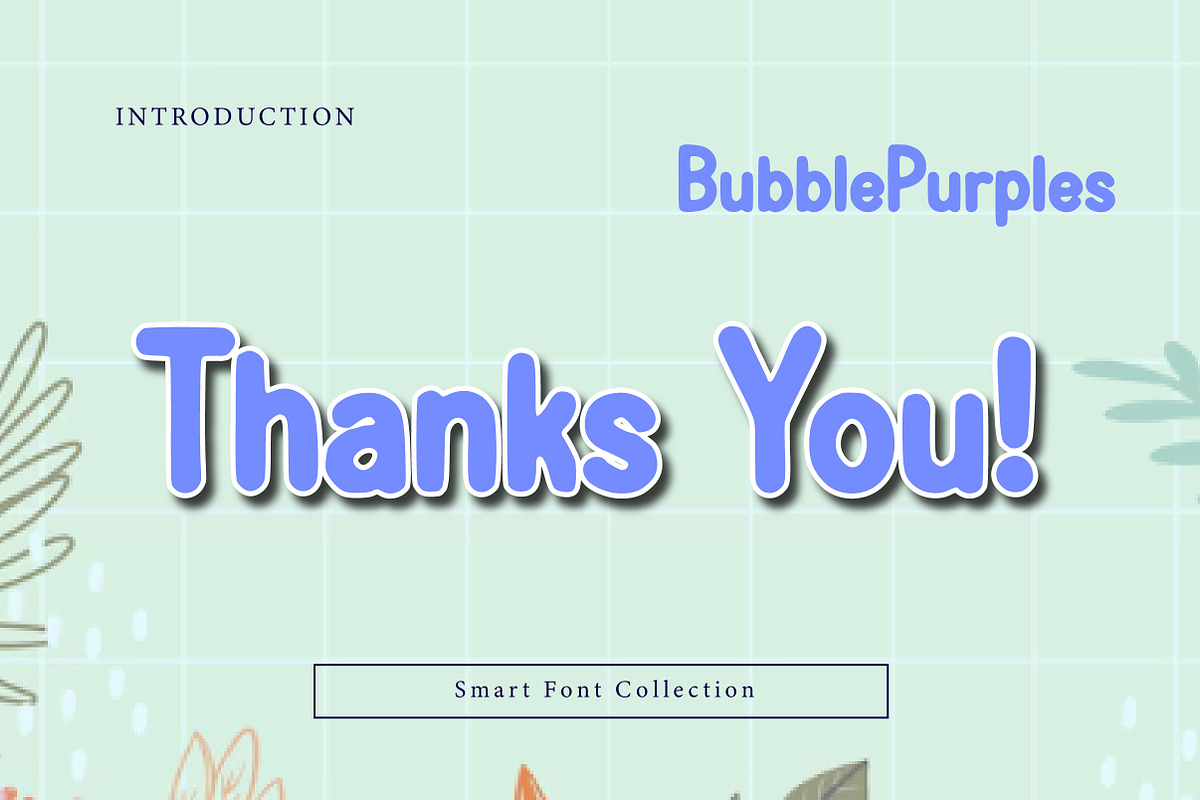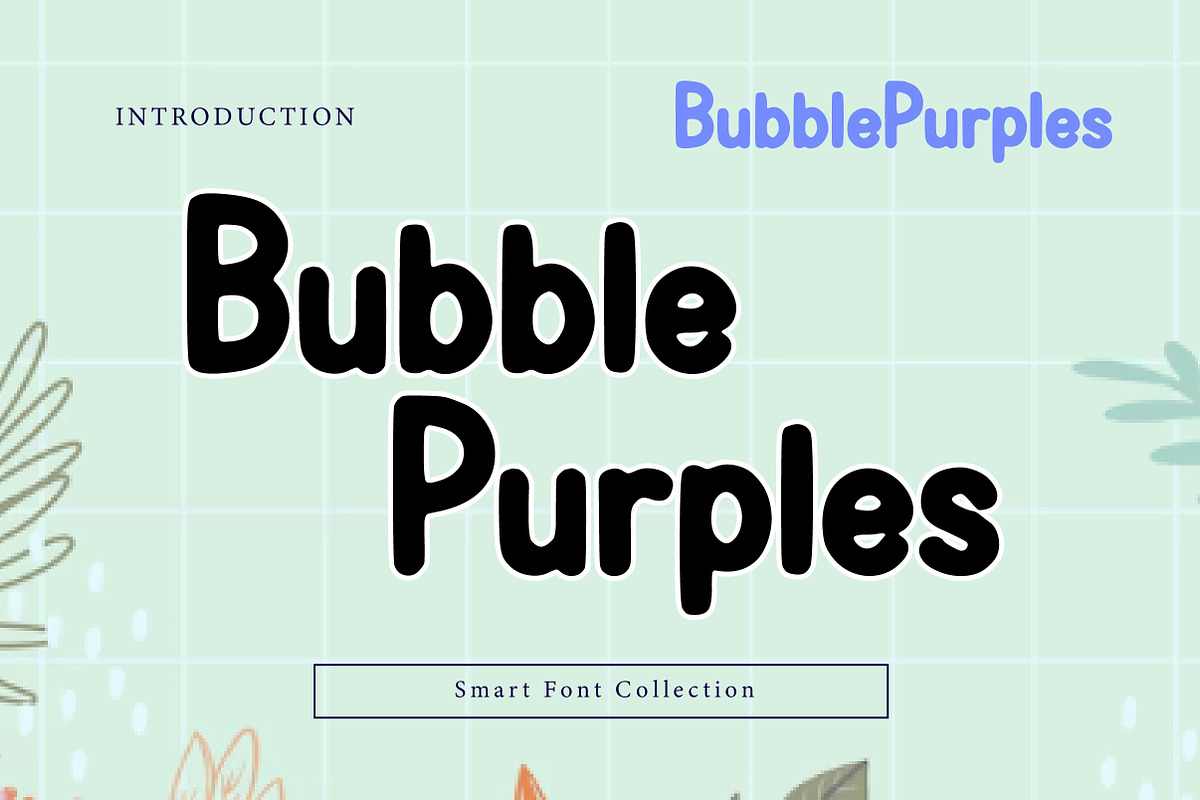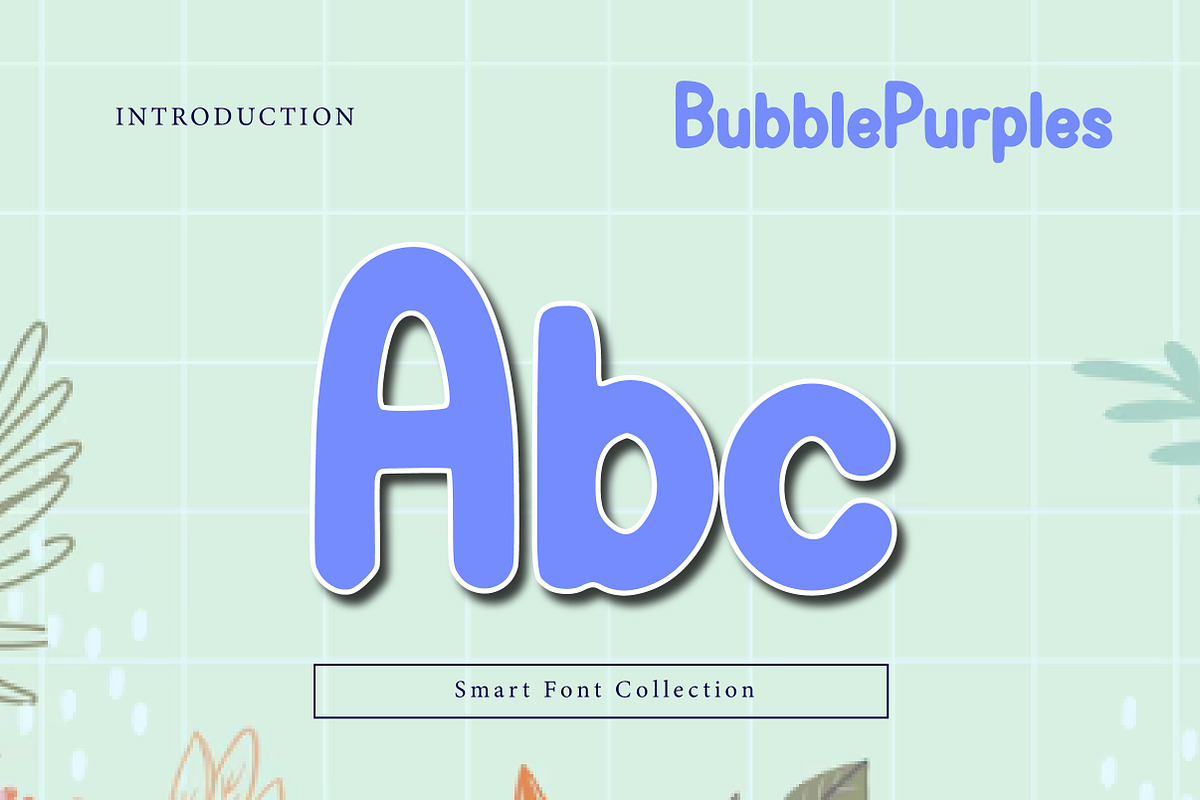
Bubble purples
Bubble Purples is a fun, rounded display font with chunky bubbly shapes and a cute, friendly mood. Designed to feel soft and playful, it’s perfect for kids projects, stickers, social media posts, party invitations, packaging, greeting cards, and bright modern branding. Bubble Purples brings cheerful energy and sweet personality to your typography—ideal for designs that want to look colorful, adorable, and approachable.